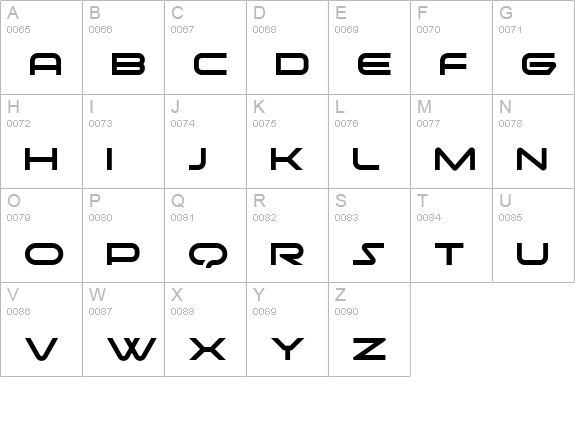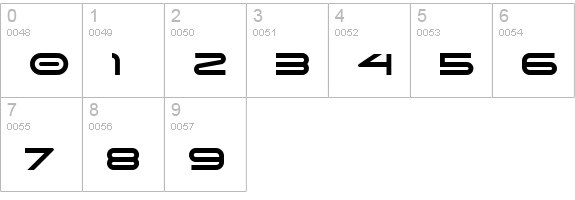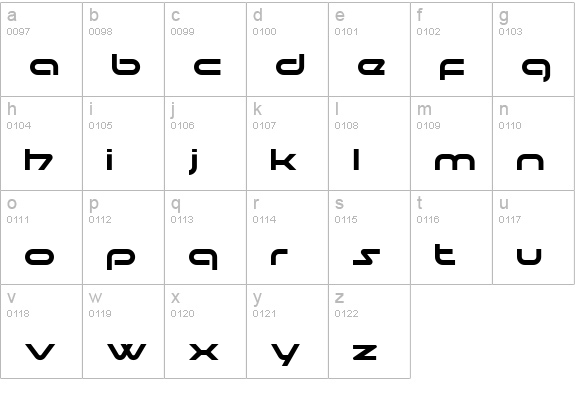
moonhouse Font Details
Moonhouse Font is a stunning and versatile typeface that will instantly elevate your design projects to new heights. With its unique and elegant style, this font is perfect for creating eye-catching logos, captivating headlines, and stylish branding materials. The beauty of Moonhouse Font lies in its delicate curves and smooth lines, which give it a modern and sophisticated look. This font is designed to be both captivating and legible, making it suitable for a wide range of applications. Whether you're crafting a poster for a music festival, designing a menu for a trendy restaurant, or creating a wedding invitation, Moonhouse Font will add a touch of elegance and charm. One of the best things about Moonhouse Font is that it is completely free. Yes, you read that right! You can freely download this amazing font at FontsMarket.com, a trusted source for high-quality fonts. By offering Moonhouse Font for free, we want to make it accessible to designers and creatives of all backgrounds, allowing them to bring their visions to life without any limitations. Not only does Moonhouse Font offer aesthetic appeal, but it also provides a wide range of characters and glyphs, including multilingual support. This means that no matter what language you're working with, Moonhouse Font has got you covered. So, why wait? Download Moonhouse Font today and start creating stunning designs that will leave a lasting impression. With its elegance and versatility, this font is sure to become a staple in your design toolkit. Remember, Moonhouse Font is free to download at FontsMarket.com, so you can start using it in your projects right away. Don't miss out on this amazing opportunity to elevate your designs and make them truly exceptional.